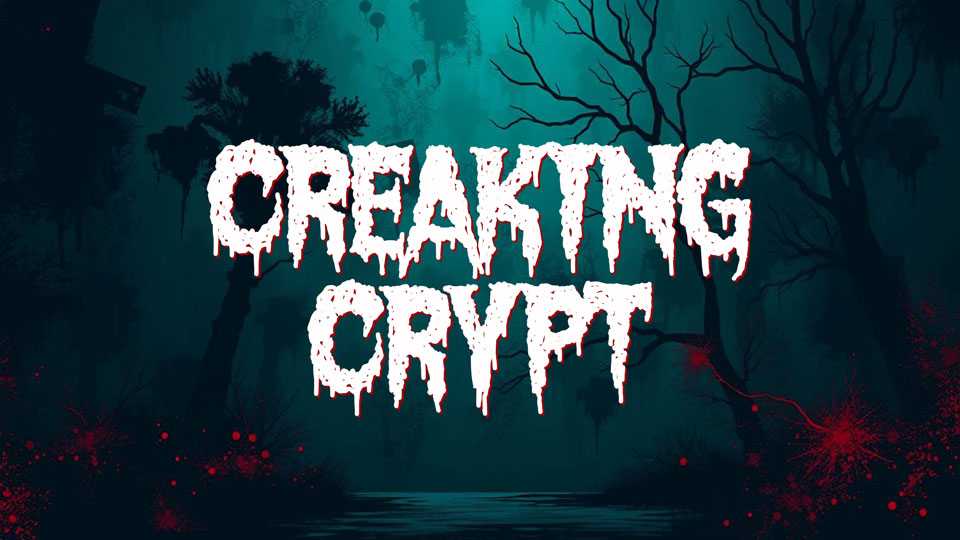
Download Creaking Crypt font, a dripping horror typeface that oozes dread and grotesque charm. Its melting, fluid-like letterforms evoke the imagery of blood, slime, and decay, making it an ideal choice for projects that embrace the macabre.